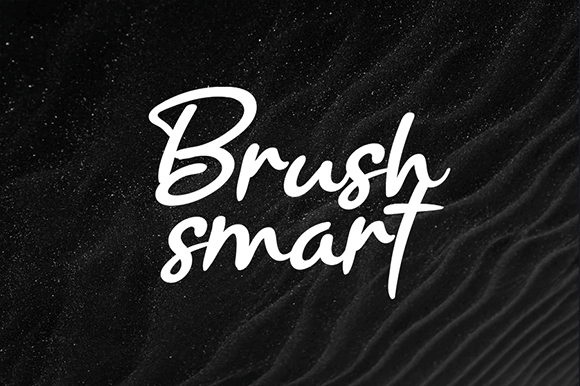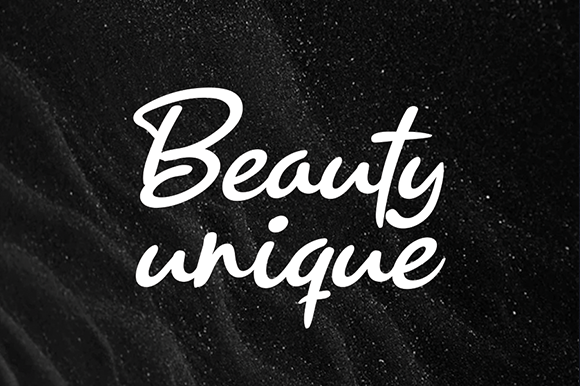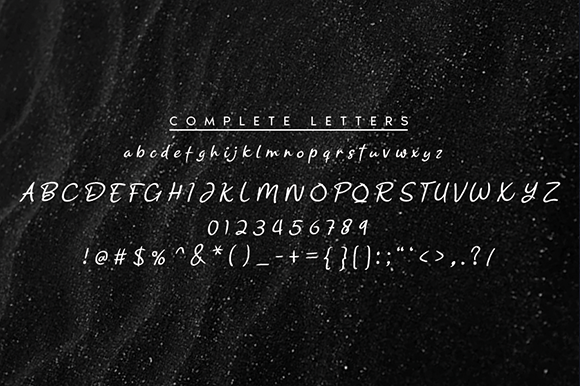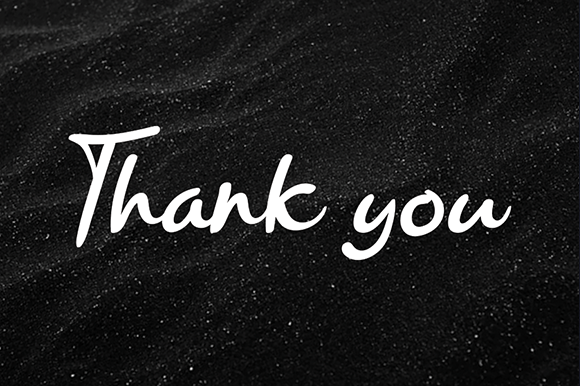
Ramyihu Tsirt Sart Font
About Ramyihu Tsirt Sart Font
Ramyihu Tsirt Sart is a gorgeous and unique handwritten font, designed to make your projects come alive. Fall in love with its incredibly versatile style and use it to create stunning wedding invitations, beautiful stationary art, eye-catching social media posts, and much more!